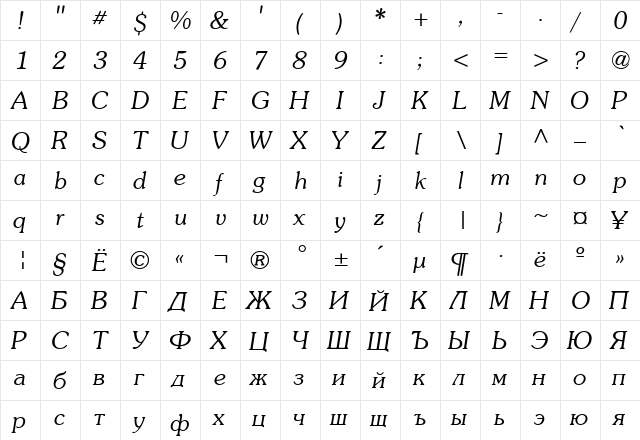
Souvienne Italic
Design Context for Souvienne Typeface
Souvienne takes a measured approach to typography — its balanced proportions and neutral character make it a reliable workhorse for both digital and print work. Its italic angle brings a sense of urgency and motion to the letterforms.
Pro Tip: Use Souvienne for emphasis, pull quotes, and subheadings where its slanted energy can add rhythm to the layout.